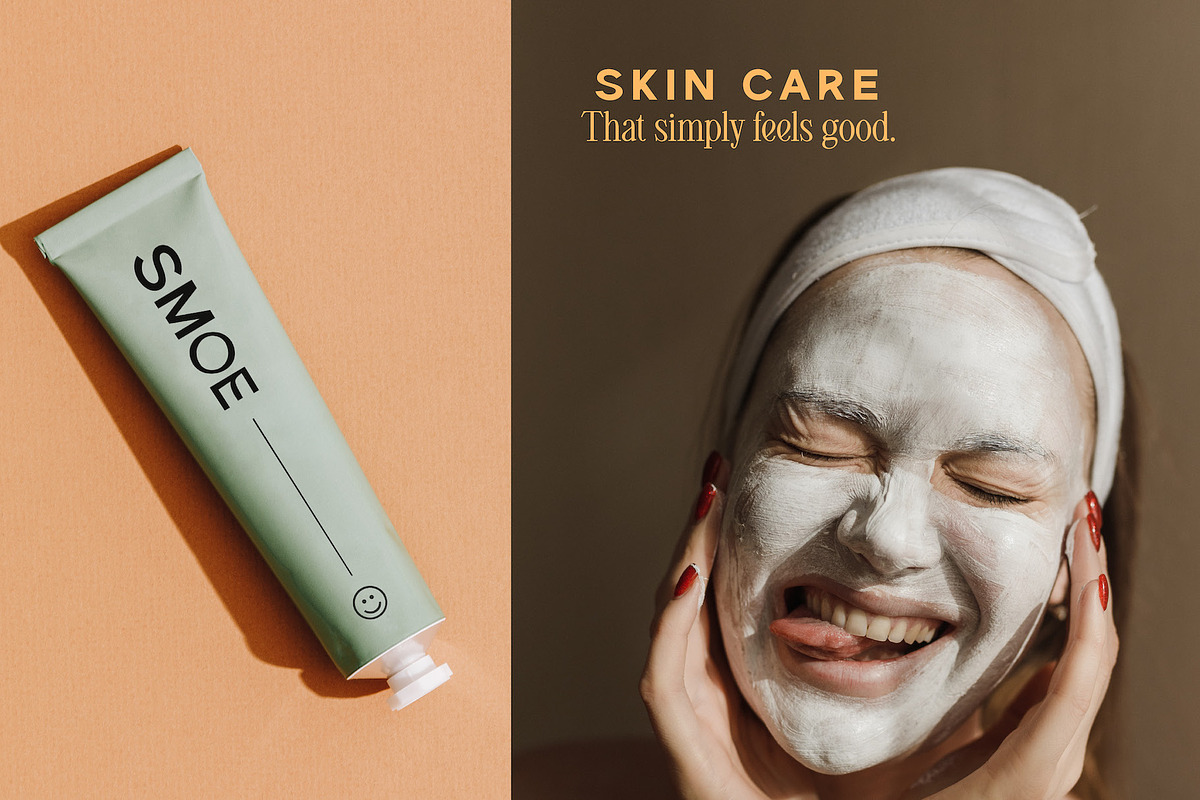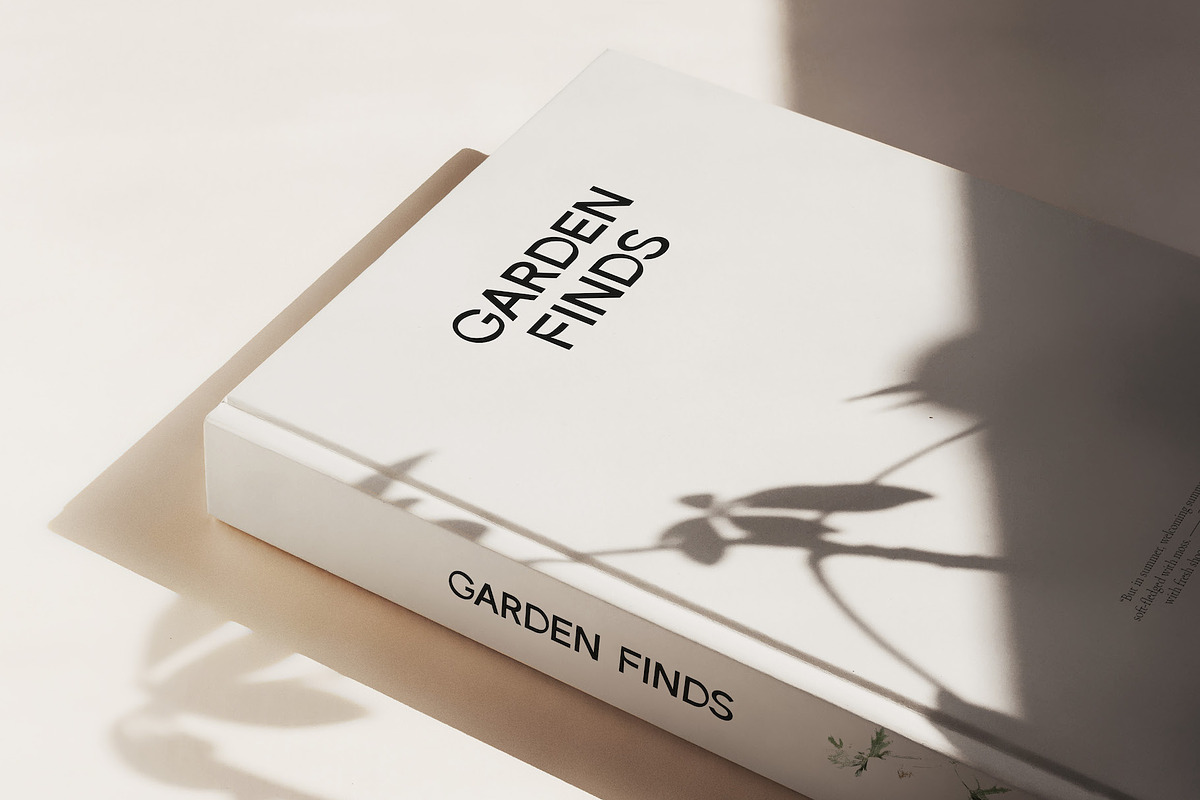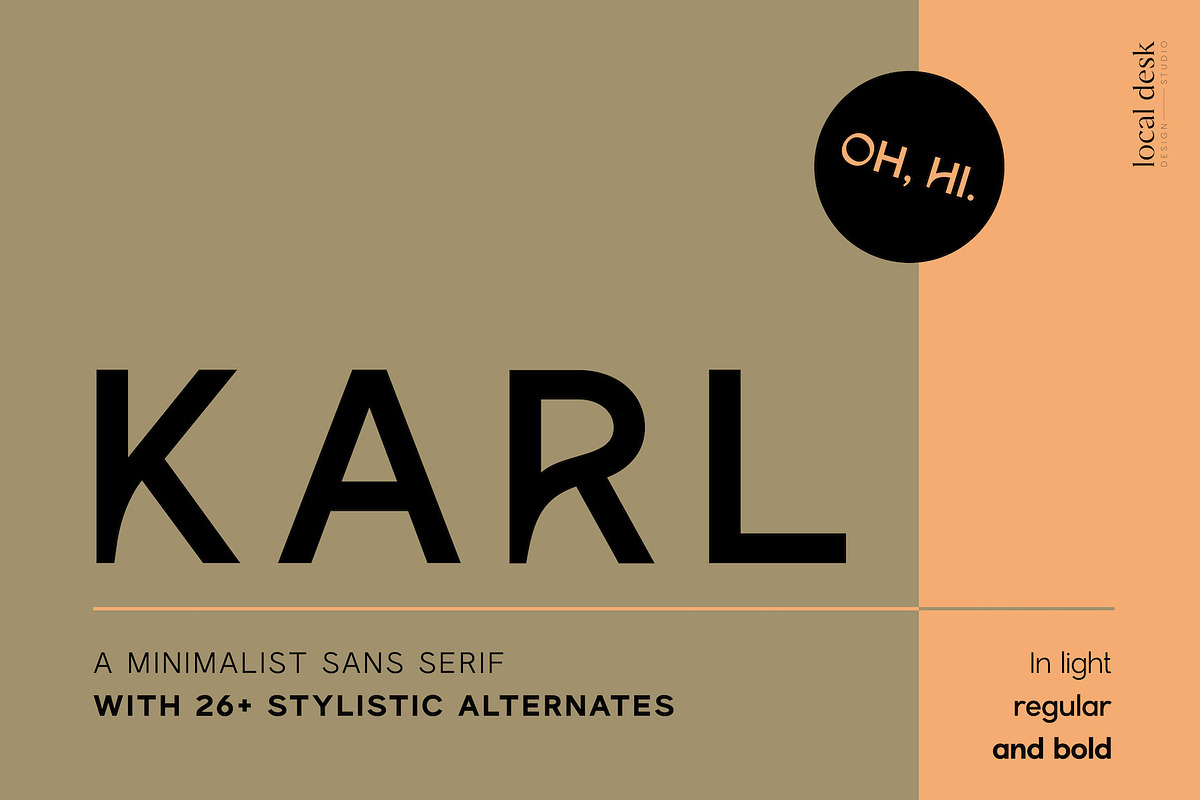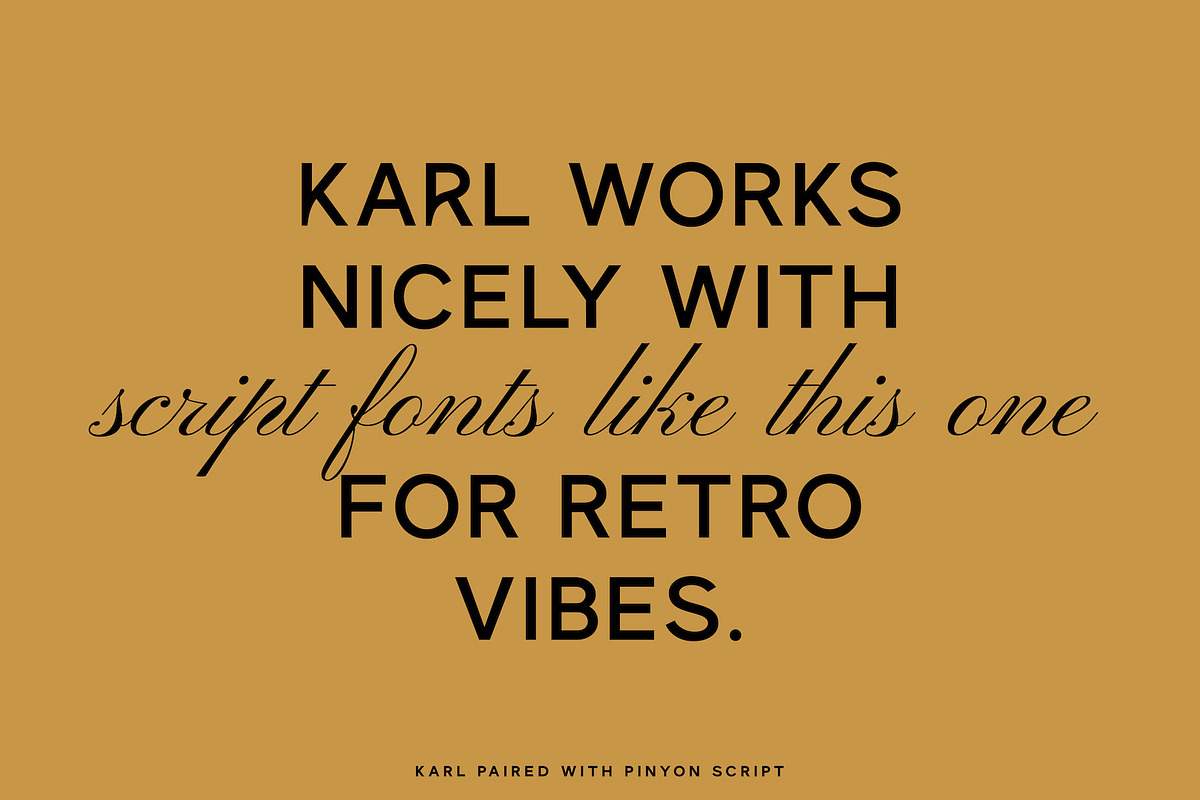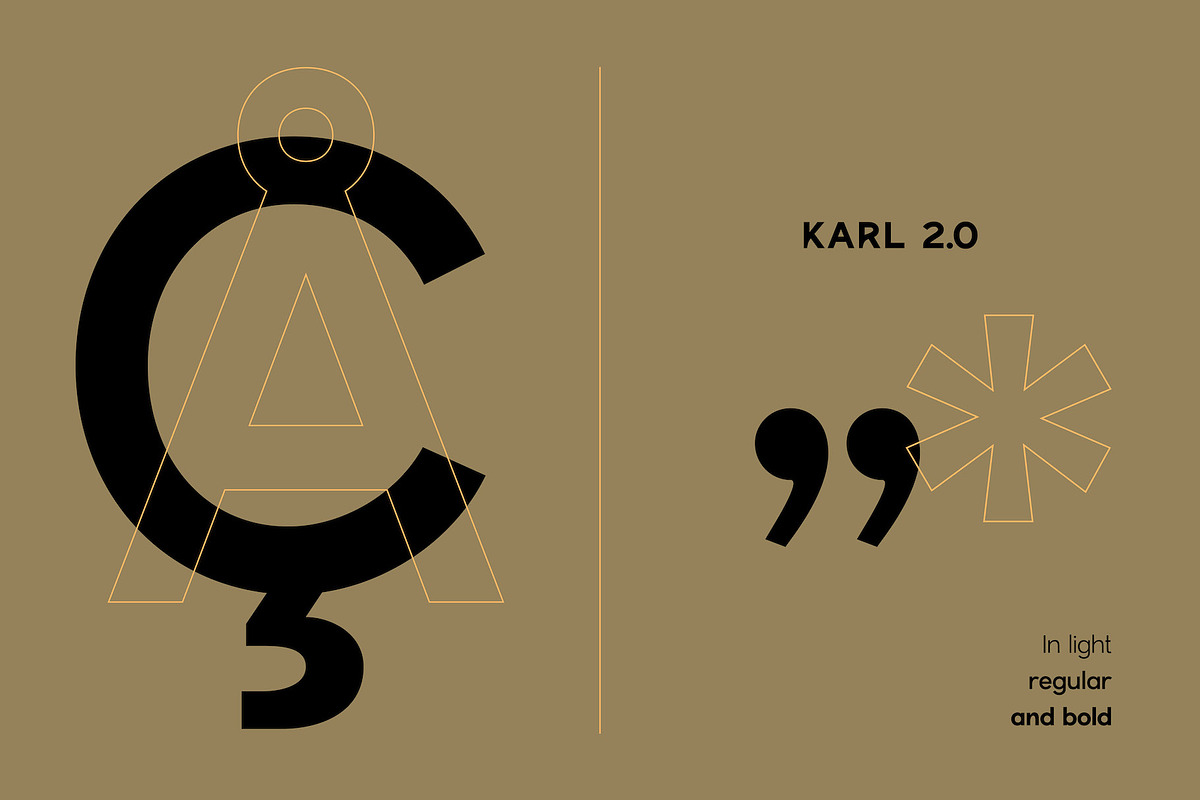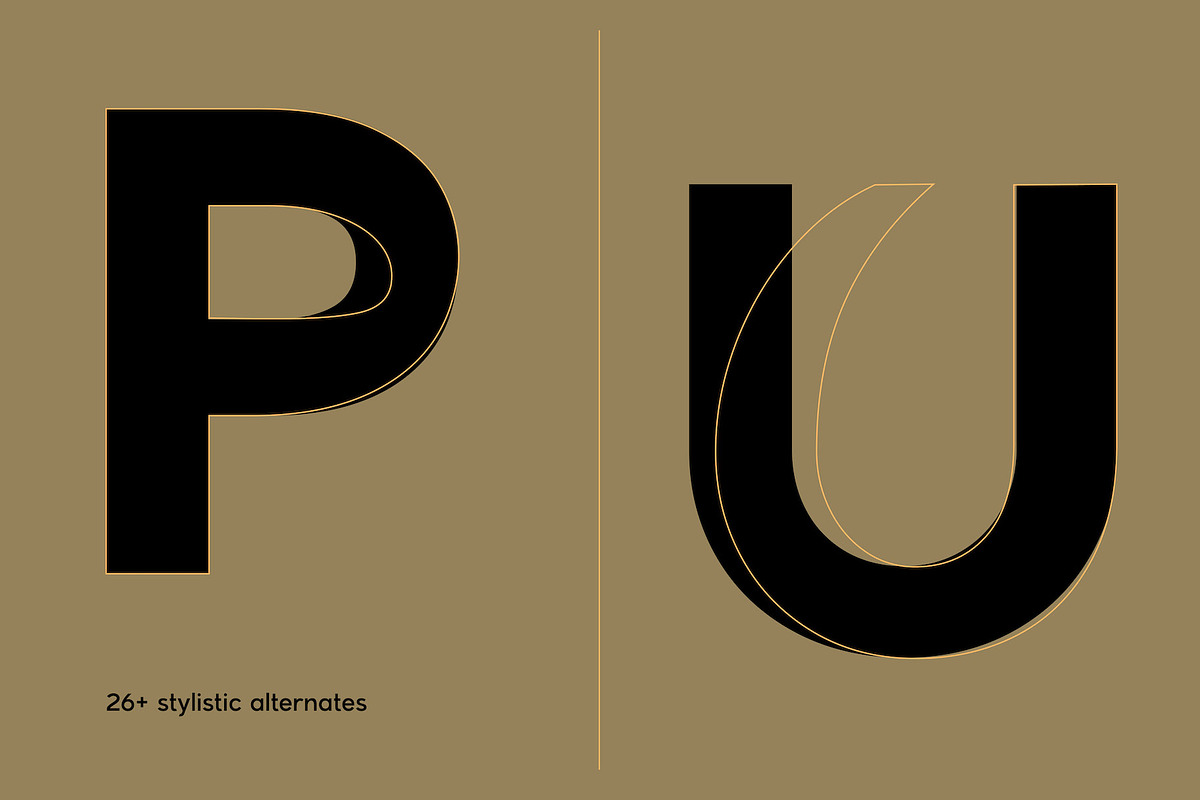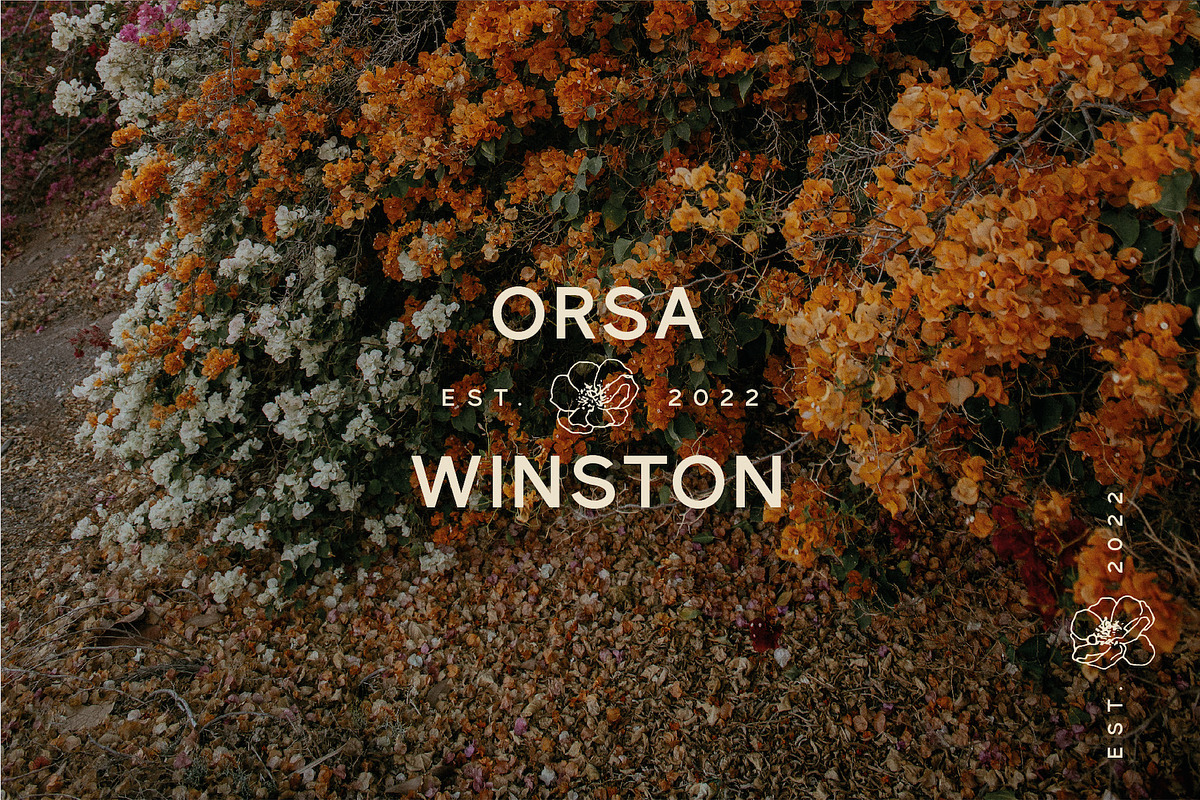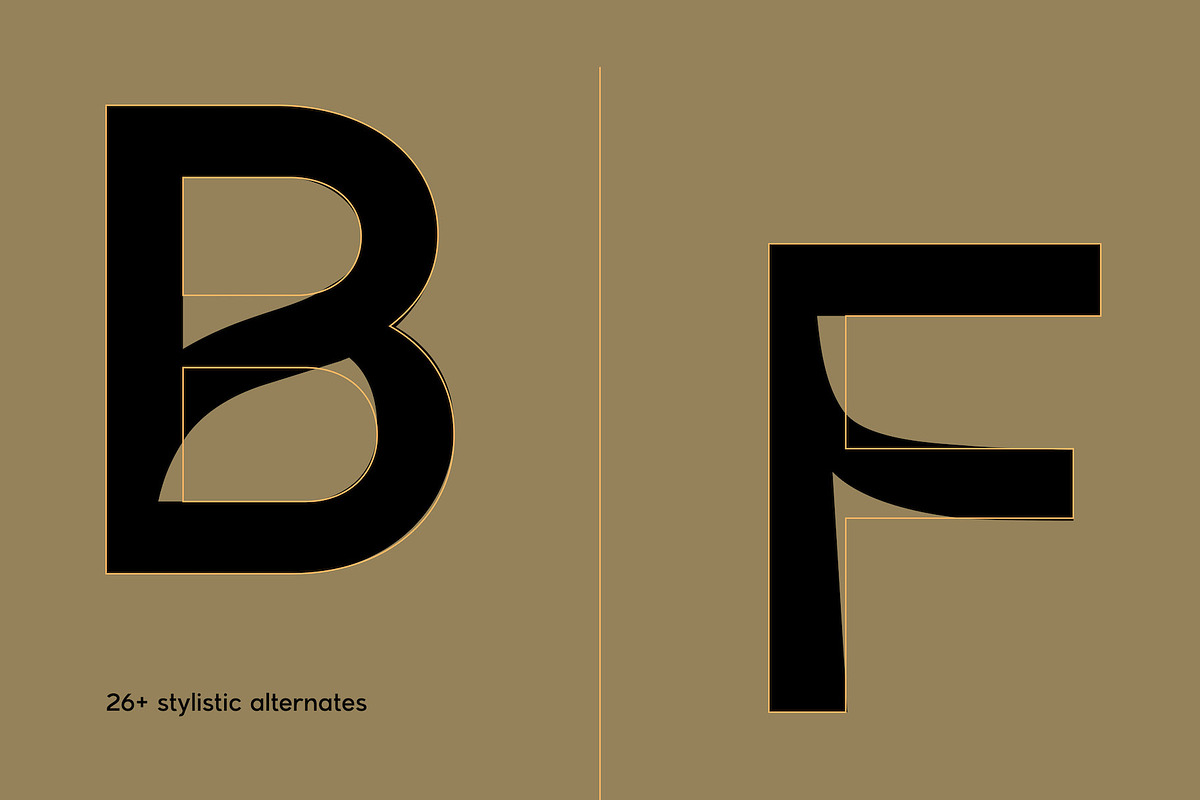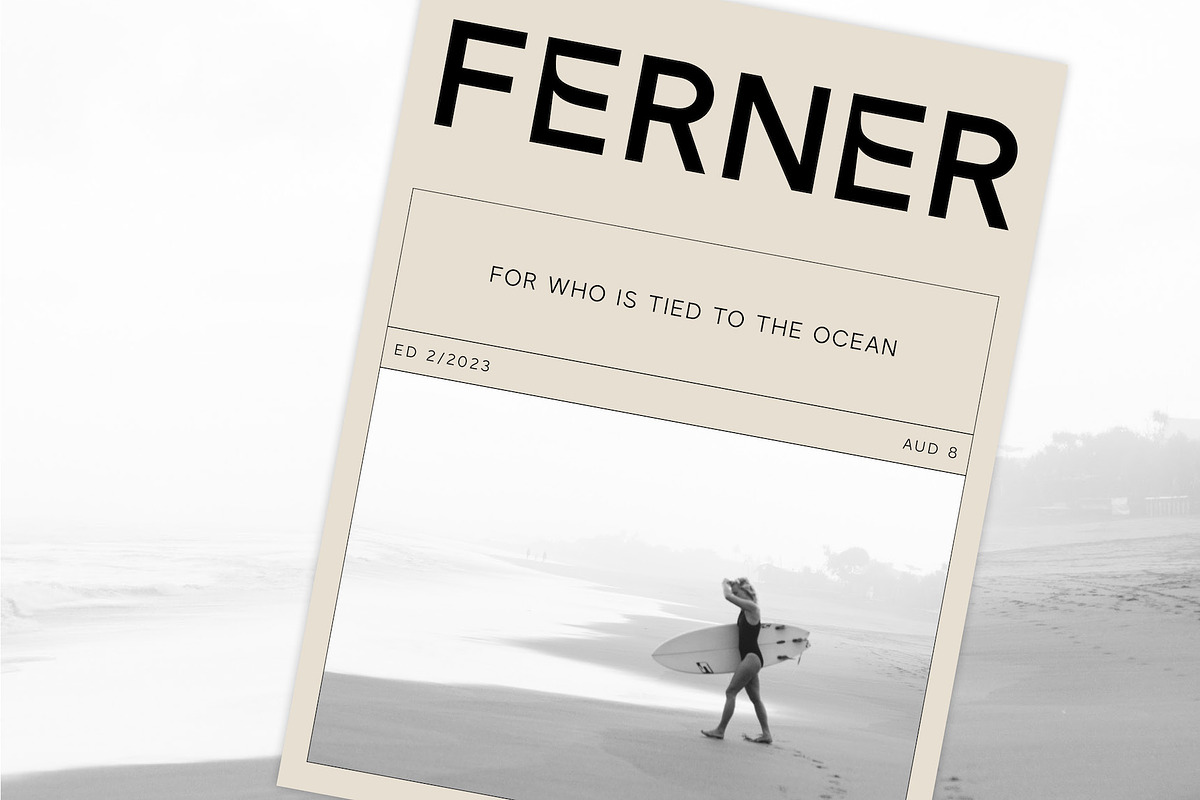
Karl – Cool Sans w Unique Alternates
Karl is a bespoke & minimalist 3-weight sans serif typeface that is perfectly suited for creating unique designs.
This typeface is equipped with 26 stylistic alternates to make everything you design look refined, custom and professional so very effortlessly. The thoughtfully & somewhat irregular designed alternates in combination with the clean main characters create a perfect balance for your design project. Karl saves you from having to find the perfect font pair for your next design project.
- 26+ Stylistic Alternates (can be accessed via the Glyphs Panel)